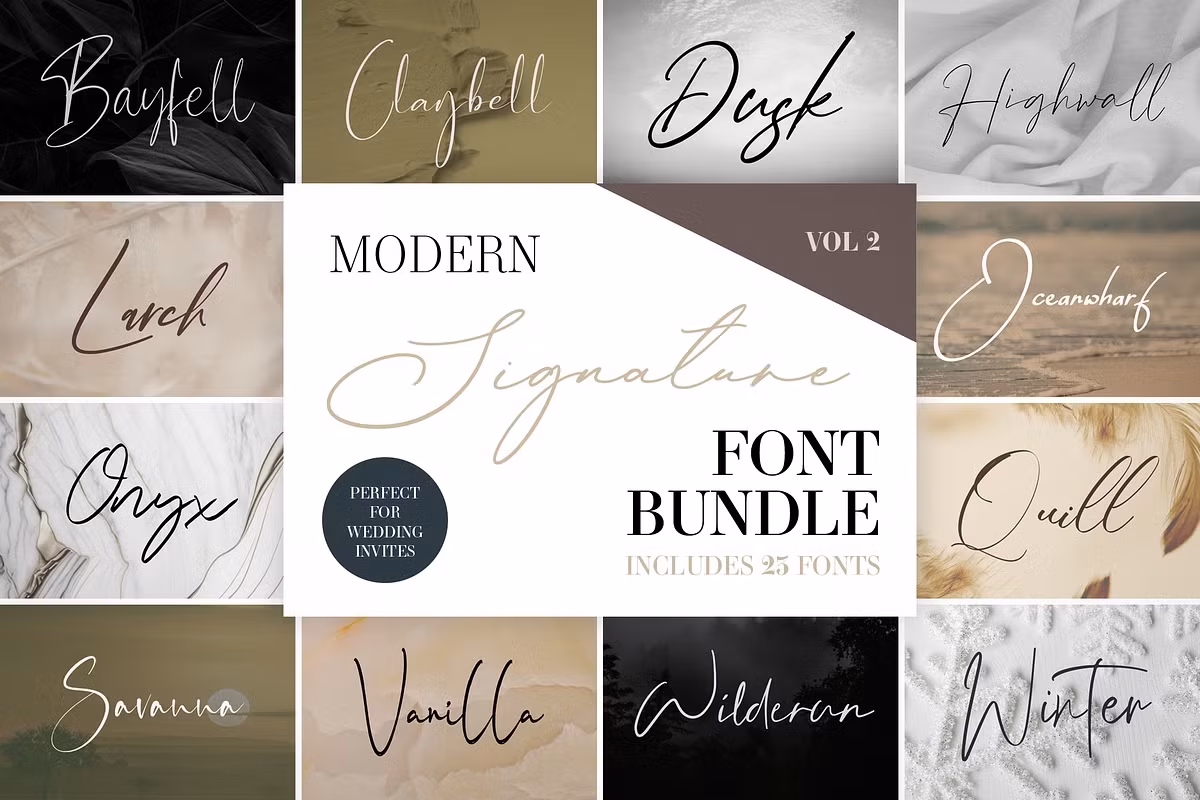
Modern Signature Font Bundle Vol 2 Free Download
Modern Signature Font Bundle Vol 2 Free Download is a versatile and stylish collection of signature-style fonts designed to add elegance and personality to your designs. This bundle features a range of fonts that mimic the beauty of handwritten calligraphy, perfect for branding, invitations, logos, social media posts, and more. Whether you're designing for a luxury brand, creating personalized gifts, or crafting chic wedding invitations, Modern Signature Font Bundle Vol 2 Free Download offers a unique and creative solution for all your design needs. Experiment with the fonts in personal projects before purchasing a commercial license, and bring a sophisticated, personal touch to your designs with this beautifully crafted font bundle.